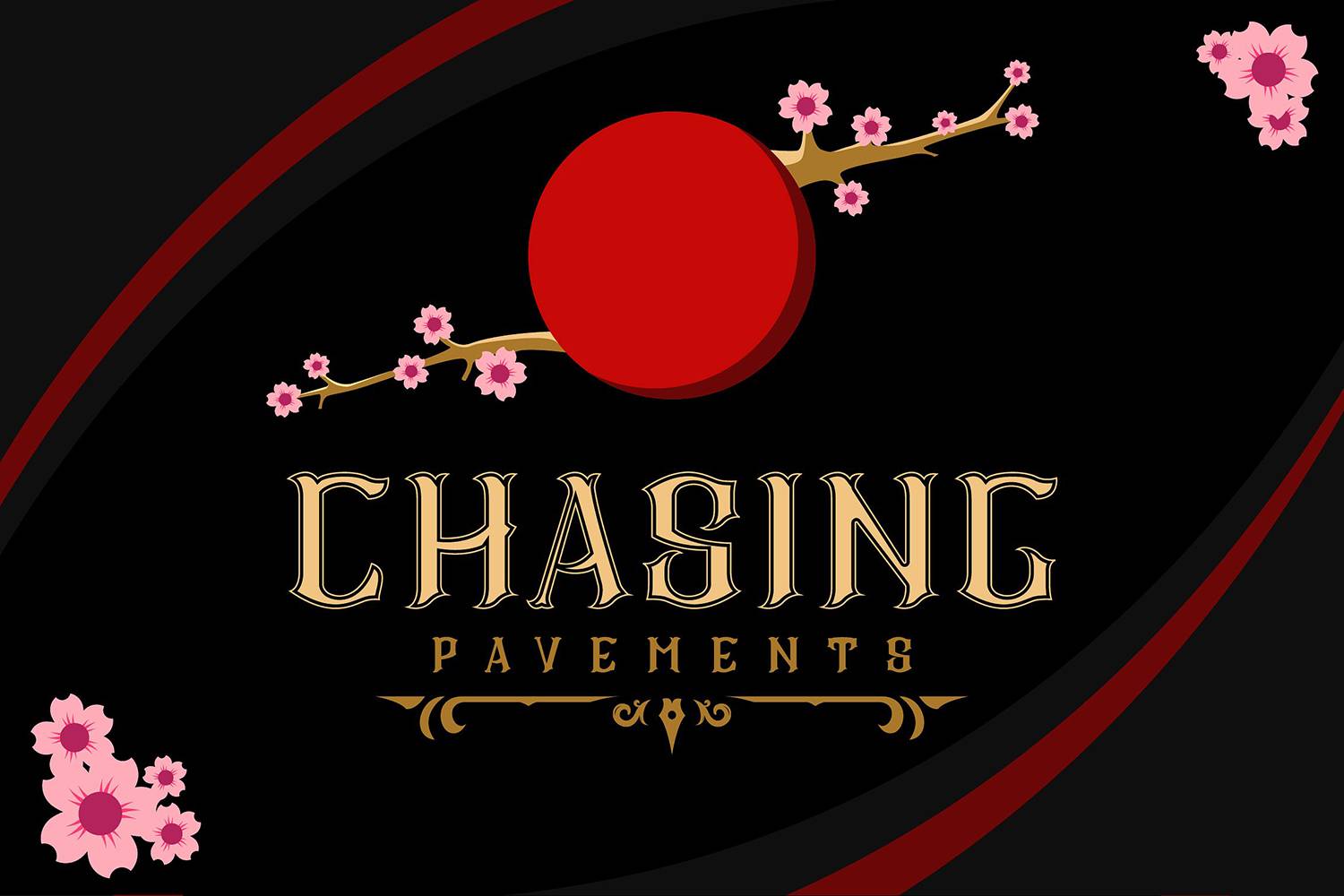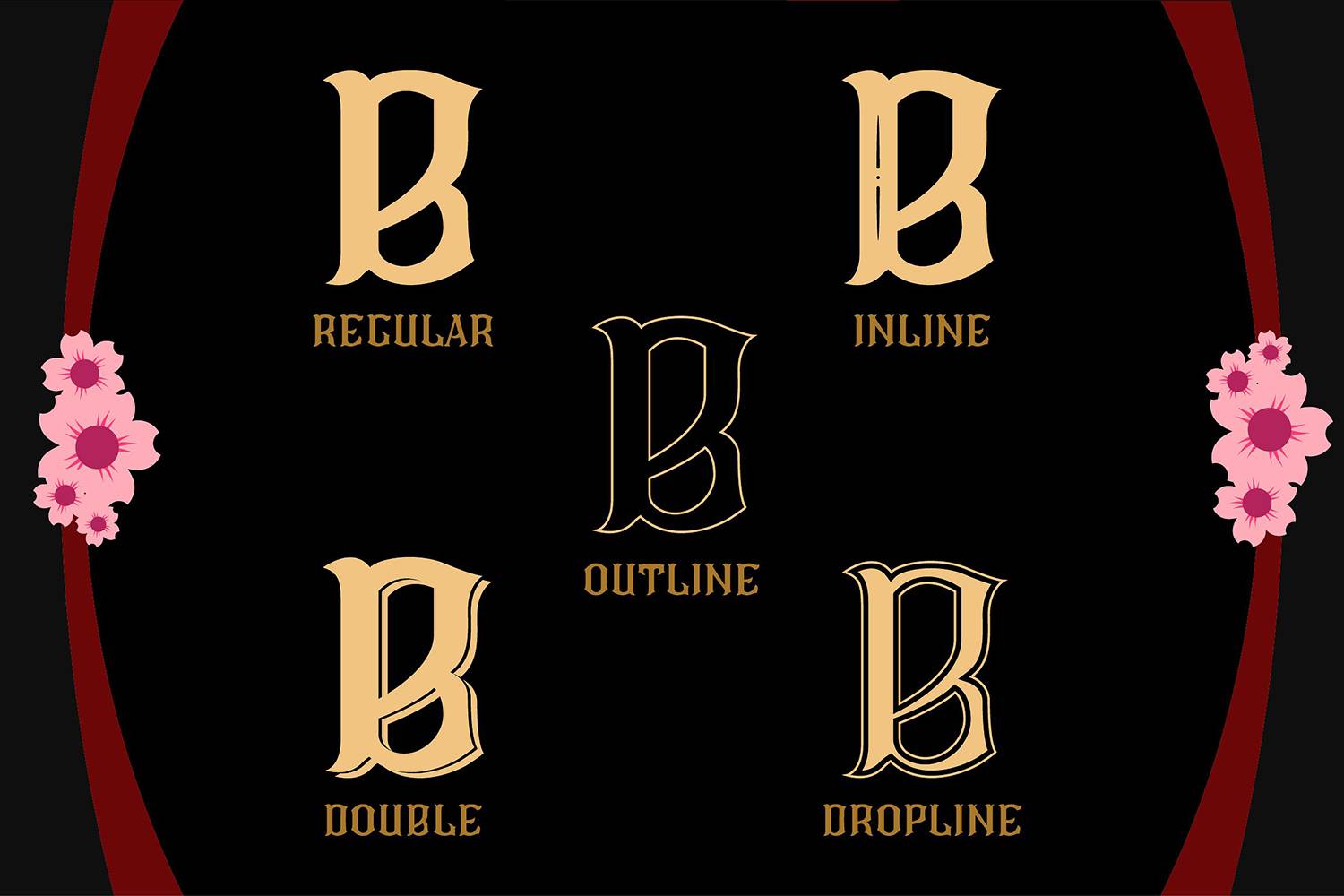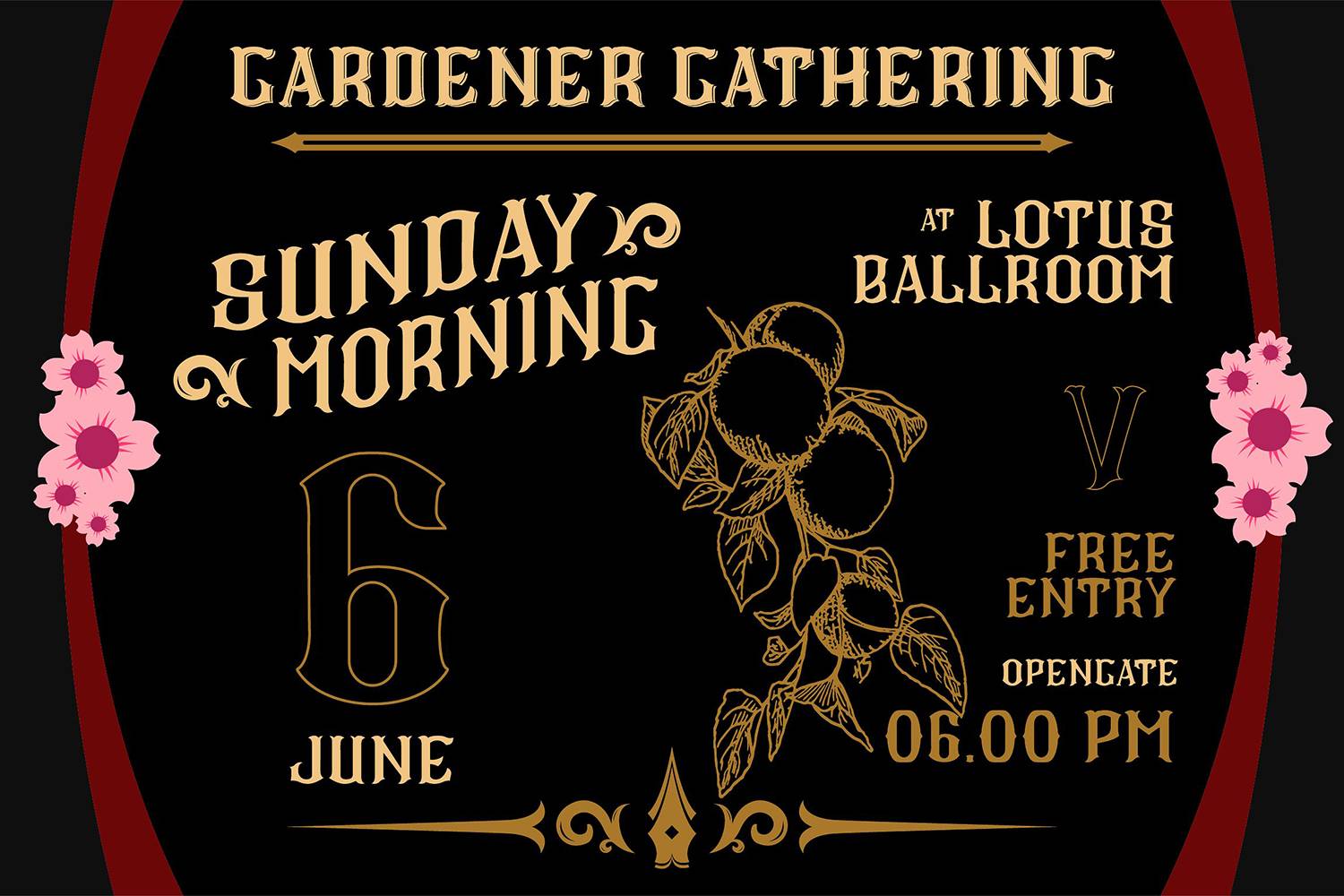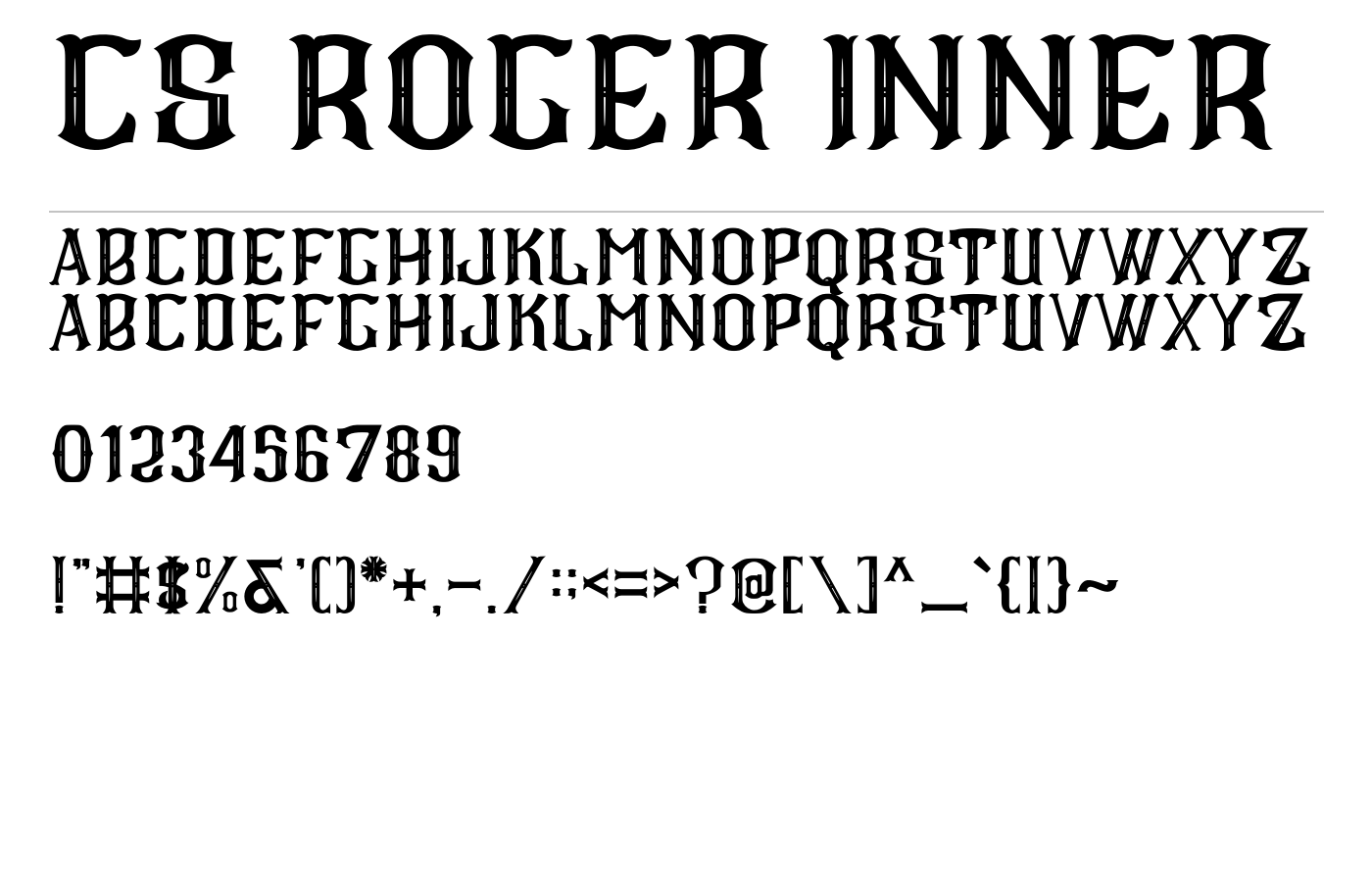
CS Roger is a bold, condensed serif font with a strong vintage vibe, characterized by its high contrast strokes, sharp angular serifs, and tightly spaced letterforms. It features uppercase-only glyphs with distinctive, ornate details that give it a dramatic, gothic-inspired personality, making it ideal for impactful headlines, logos, or branding that seeks to convey a bold, historic, or craft-oriented identity. This font works well in projects where striking visual presence and a touch of old-world charm are desired.
CS Roger Font
About CS Roger Font
| Font family | CS Roger Font |
| Designer | Craft Supply Co. |